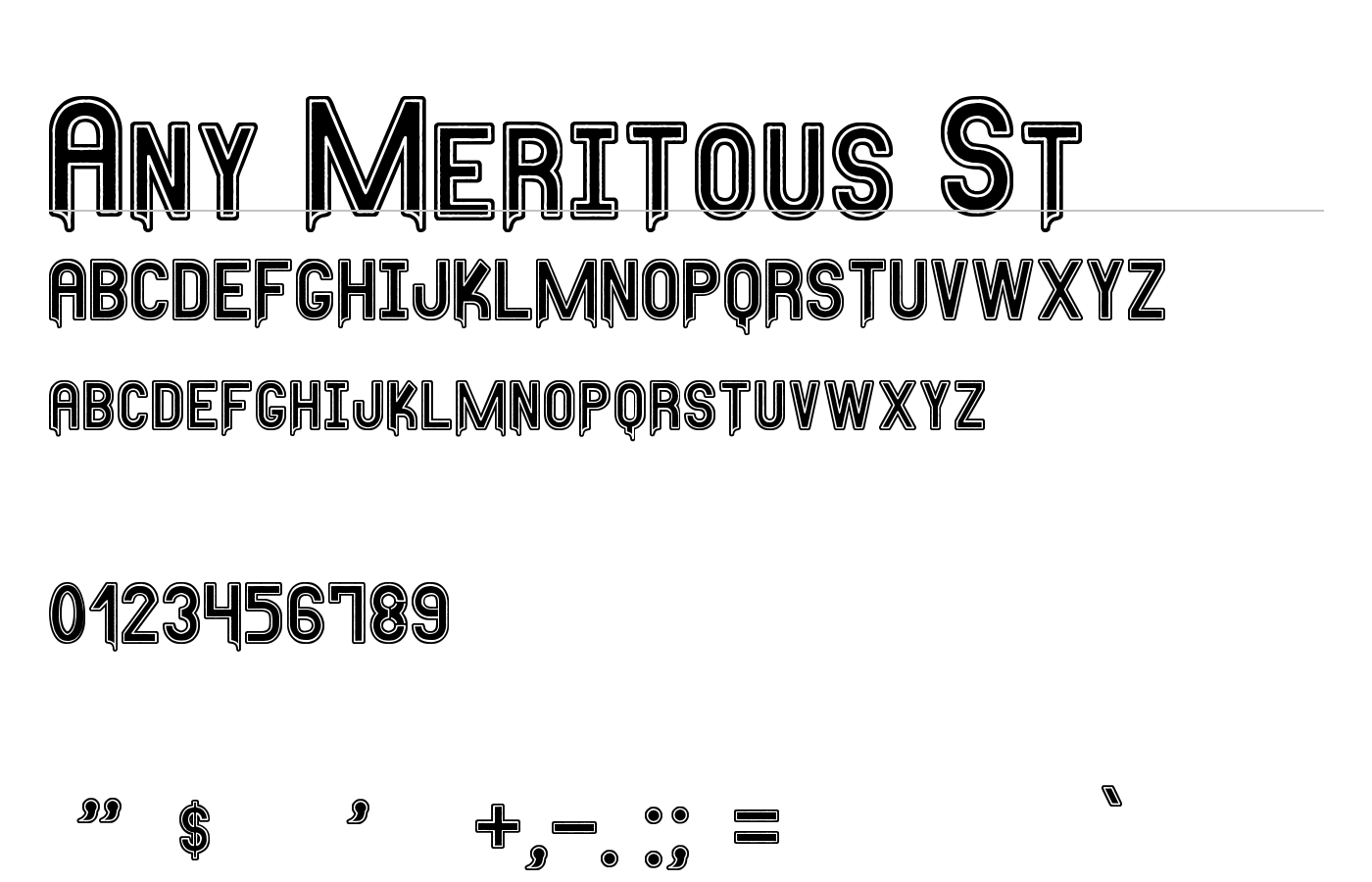
Any Meritous St is a distinctive sans serif font with a modern, condensed design featuring clean geometric shapes and subtle rounded corners. Its unique outline style with decorative drop-like elements at the bottom of letters adds a creative, slightly playful touch while maintaining legibility. This font works well for eye-catching headlines, logos, and branding that seek a bold yet approachable look.
Any Meritous St Font
About Any Meritous St Font